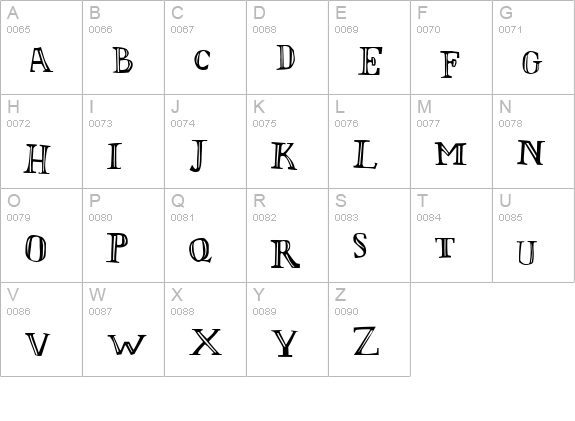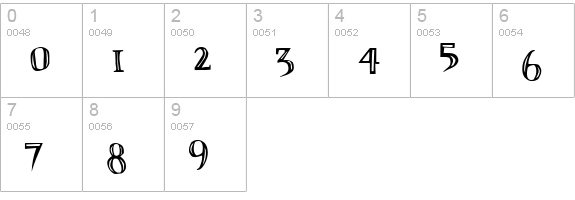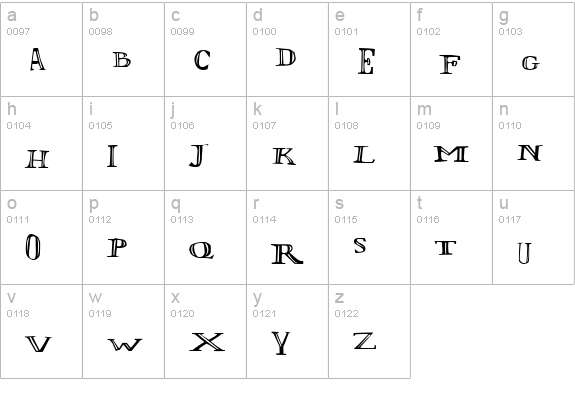
LOlivier Irregular Font Details
LOlivier Irregular font is a stunning display typeface that exudes creativity and uniqueness. Its irregular and hand-drawn style adds a touch of artistic flair to any project, making it perfect for logos, headlines, and other design elements that require a standout look. The playful yet sophisticated design of LOlivier Irregular font makes it a versatile choice for various design projects. Best of all, LOlivier Irregular font is available for free download at FontsMarket.com, allowing designers and creatives to access this beautiful typeface without any cost. With its eye-catching appearance and easy availability, LOlivier Irregular font is a must-have addition to any designer's toolkit. Experience the charm and versatility of LOlivier Irregular font today by downloading it for free and adding a touch of creativity to your designs.